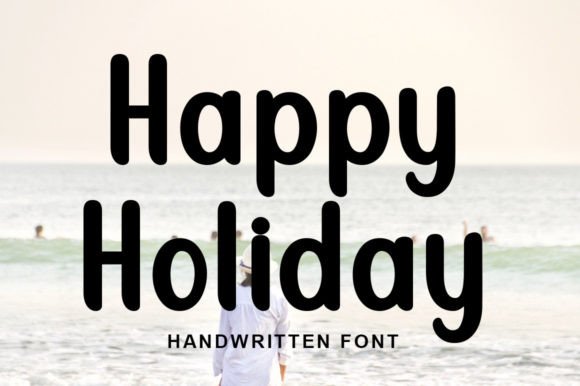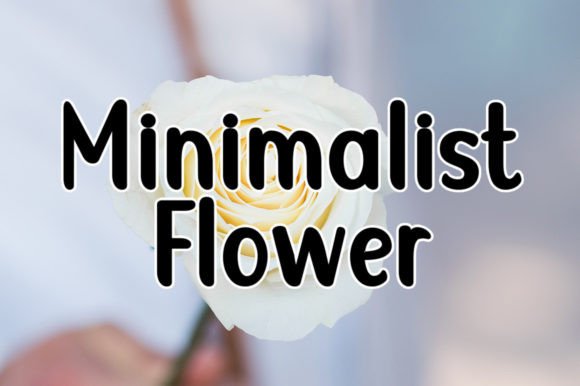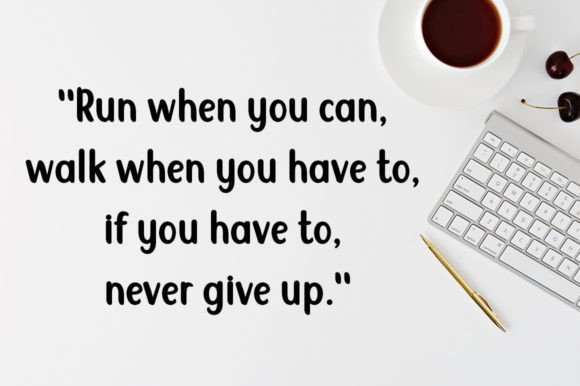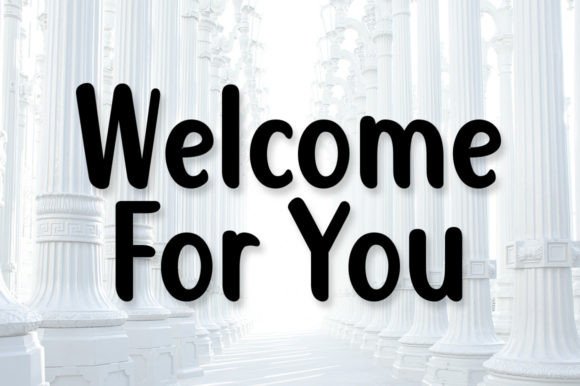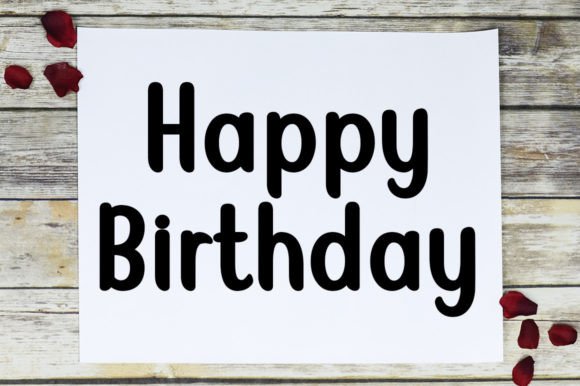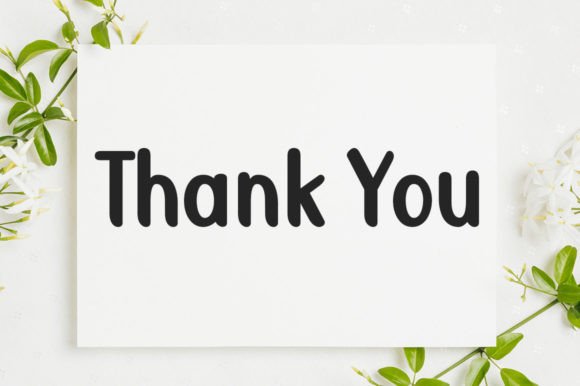
Happy Holiday Font
About Happy Holiday Font
“Happy Holiday” is a delightful and informal handwritten font that radiates a sense of joy and playfulness. Its meticulous design and intricate details make it a valuable addition to your font collection, capable of elevating the visual appeal of any creative project, regardless of its theme.
This font’s charm lies in its casual and carefree style, which brings a sense of fun to your text. Whether you’re working on a holiday-themed project, a cheerful greeting card, or any other creative endeavor, “Happy Holiday” offers versatility and a touch of whimsy. Its carefully crafted characters ensure that your text not only communicates but also conveys a sense of warmth and personality.
One notable feature of “Happy Holiday” is its attention to detail, which shines through in every character. Each stroke is thoughtfully designed to capture the essence of handwritten charm, making your text feel personal and authentic. This font adds a unique dimension to your designs, turning ordinary words into visually engaging elements.
Furthermore, “Happy Holiday” is a versatile font that can adapt to various design contexts effortlessly. It has the potential to enhance any creation, adding a playful and friendly touch. Whether you’re designing invitations, posters, or social media graphics, this font can help you achieve a lighthearted and inviting look that resonates with your audience.
Incorporate “Happy Holiday” into your font library, and you’ll discover its power to enhance the impact and creativity of your designs. Its combination of fun and detail makes it a valuable asset for designers of all levels who aim to create engaging and memorable visual content. Let “Happy Holiday” infuse your projects with a sense of celebration and happiness, turning your creations into joyful experiences for your audience.